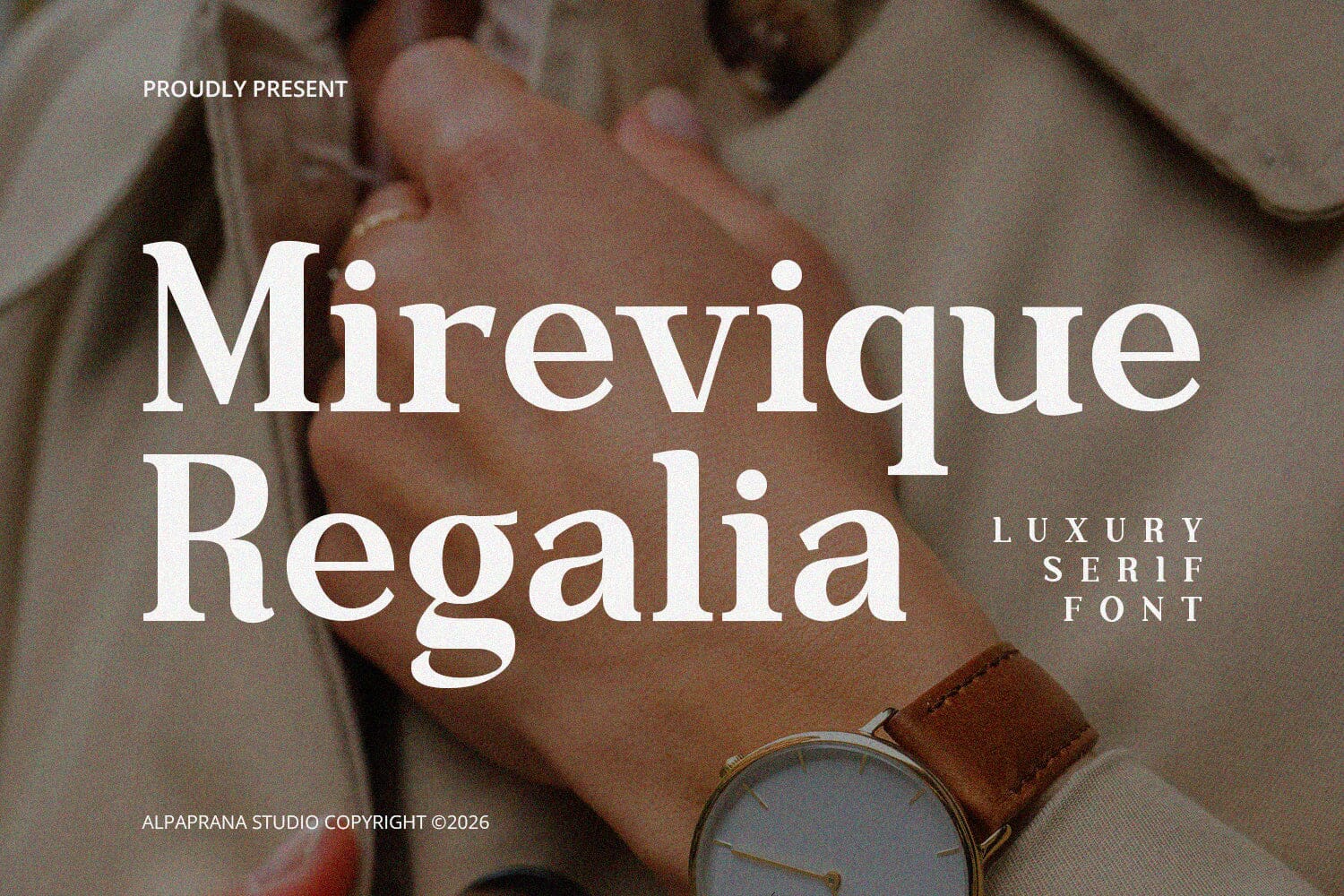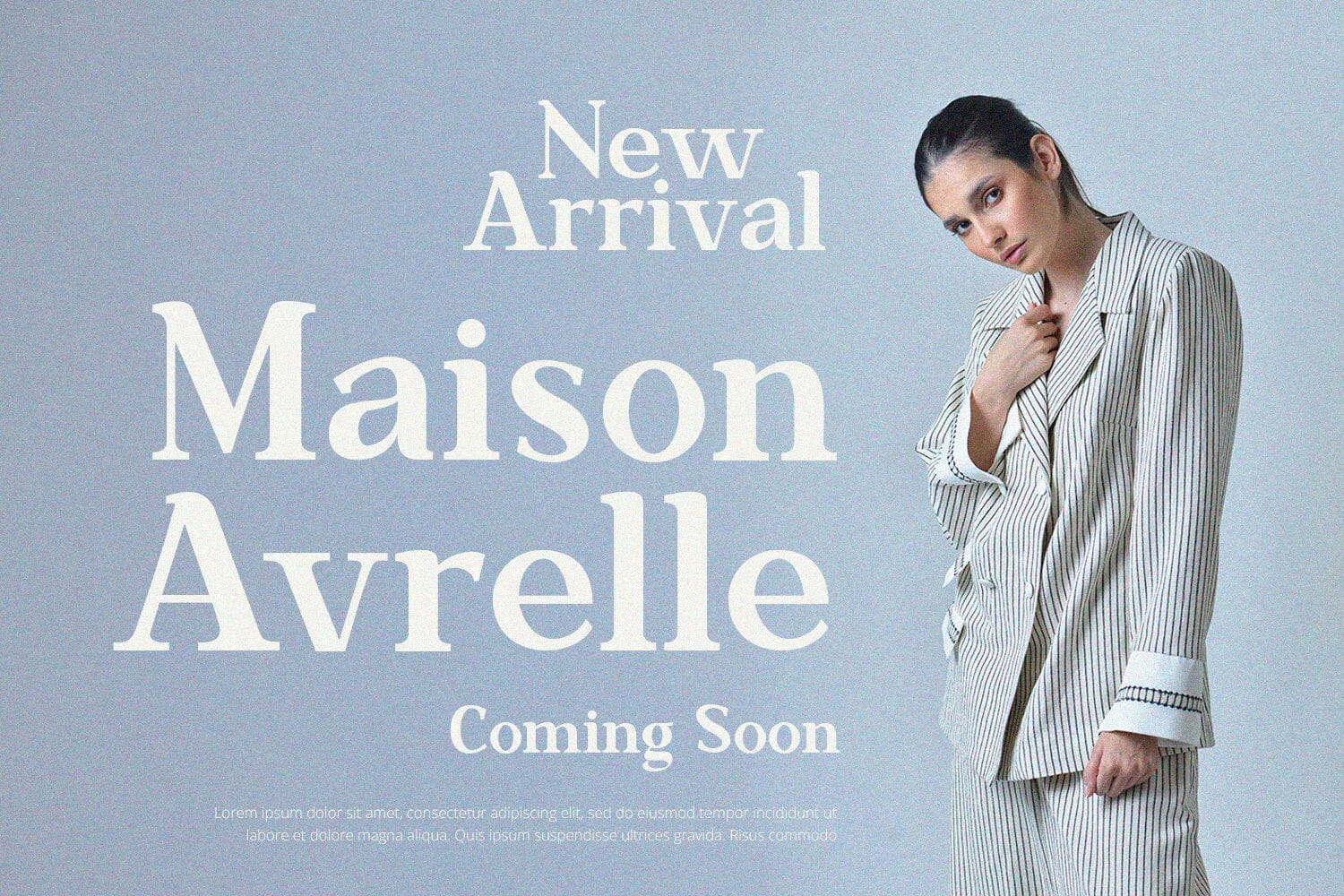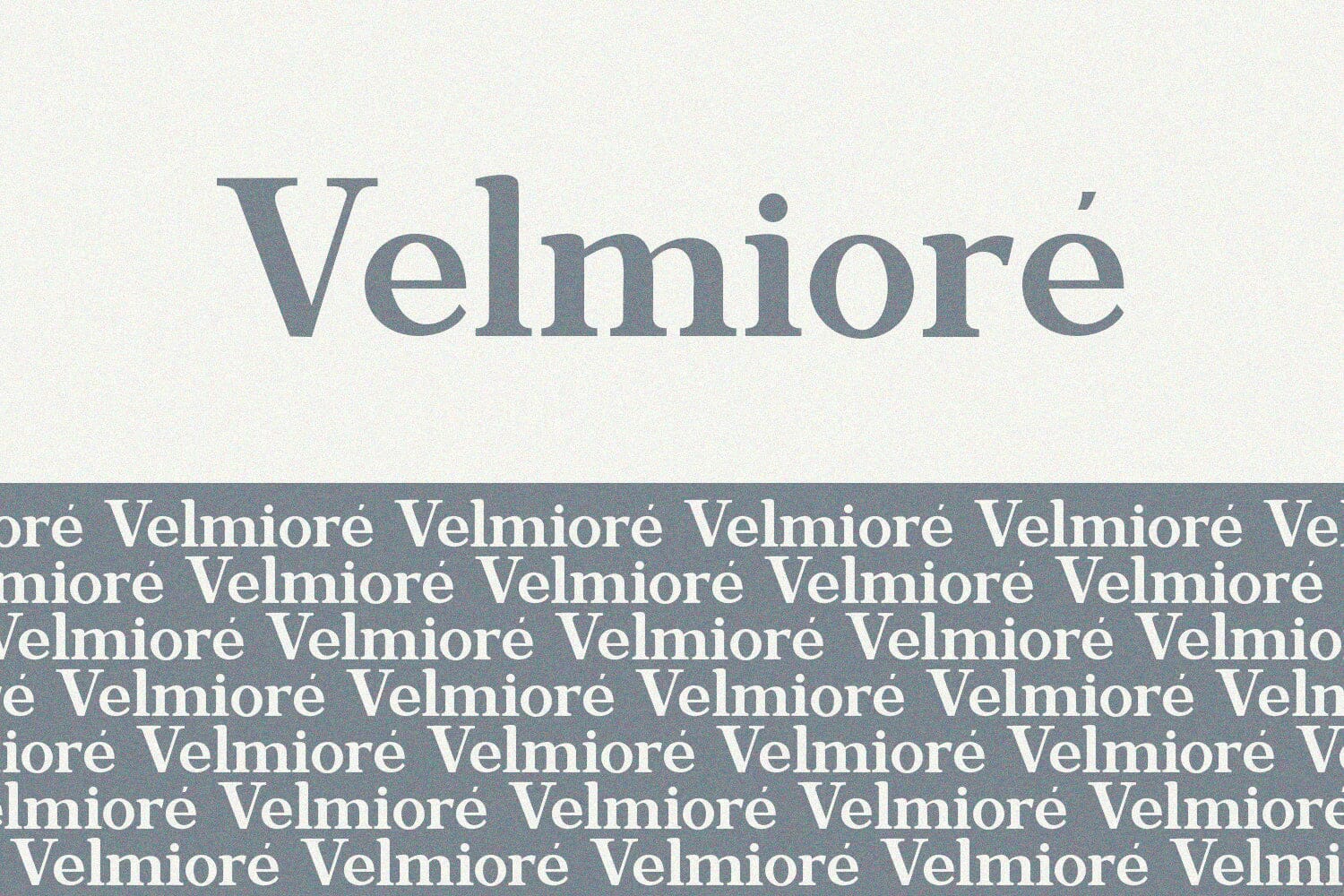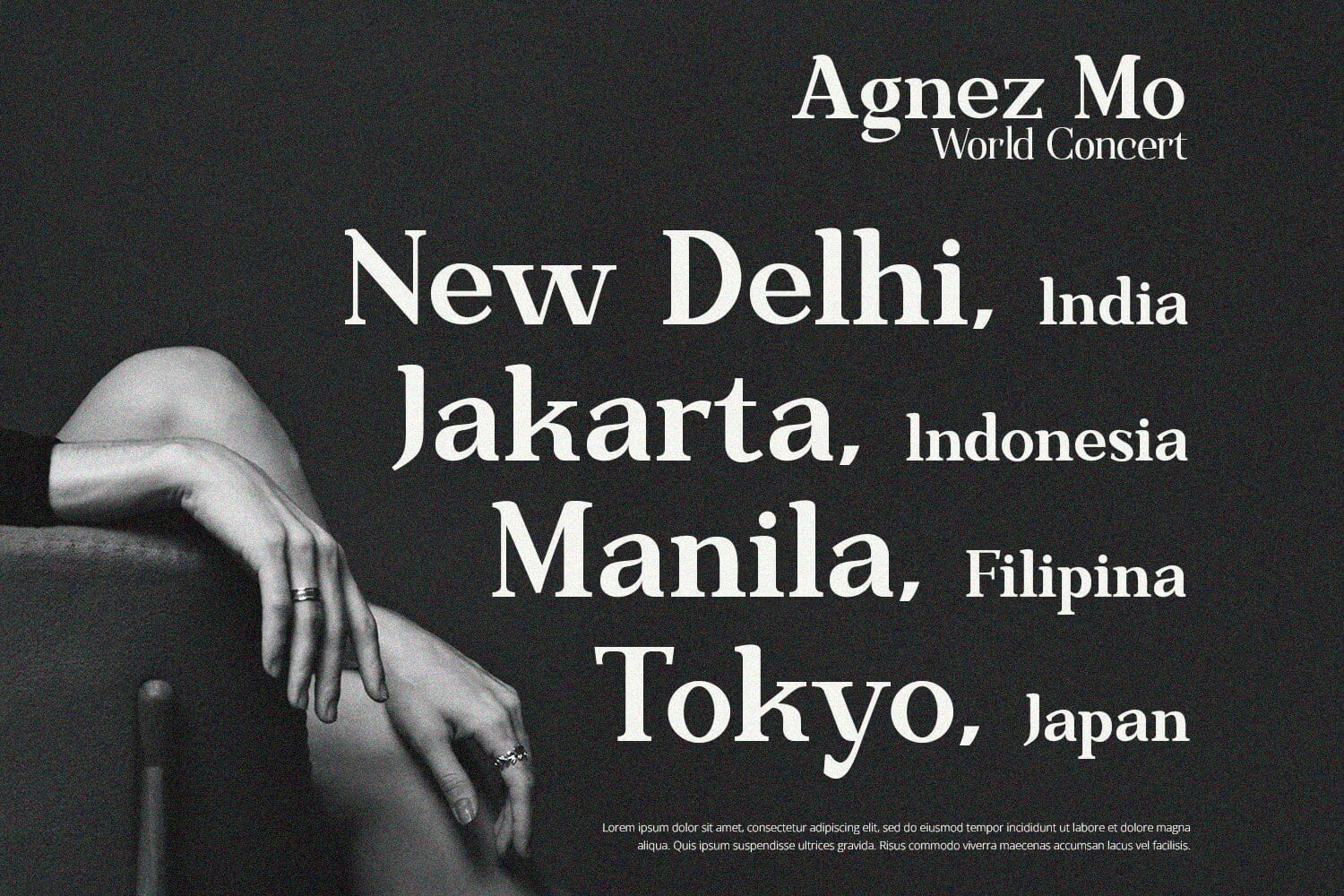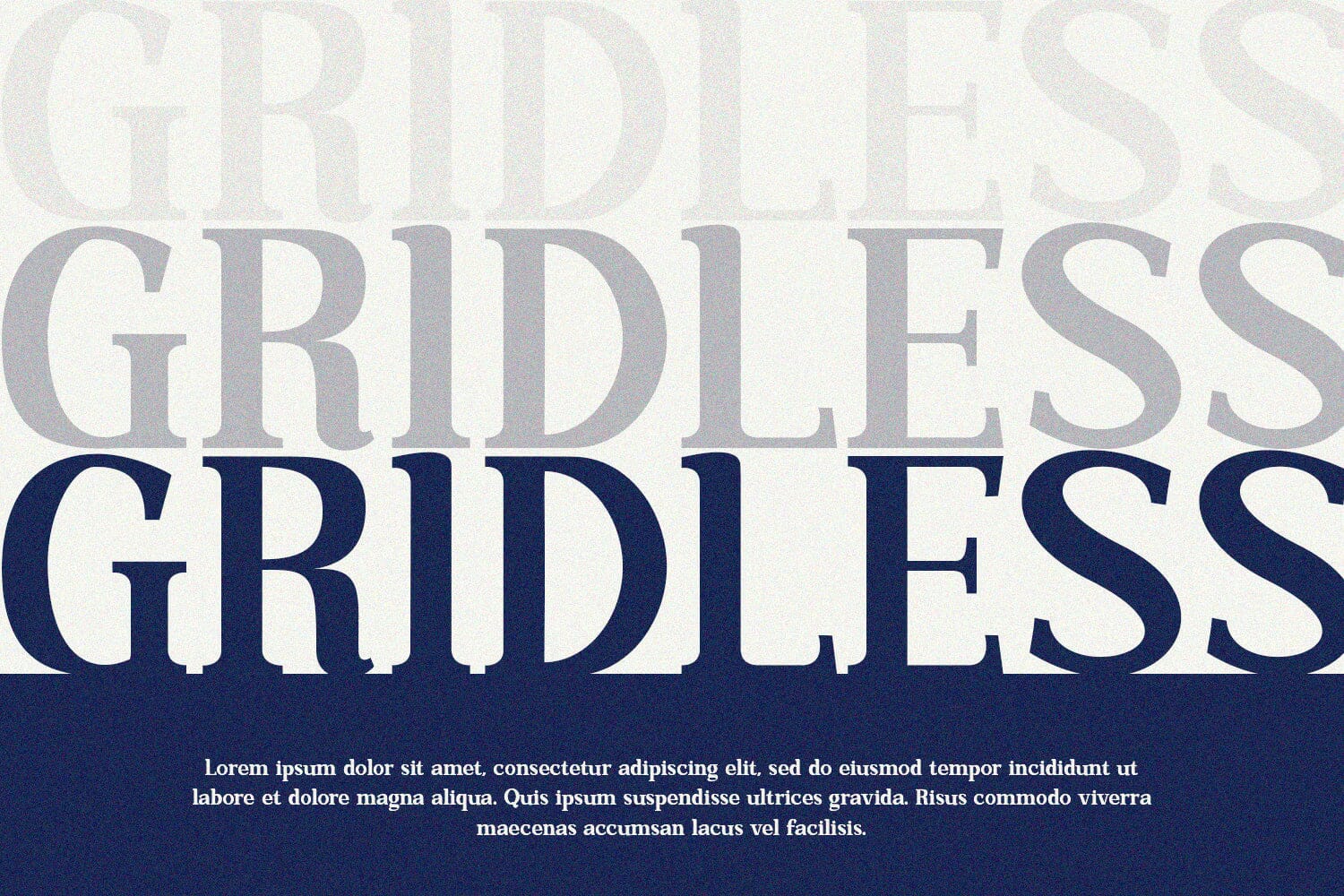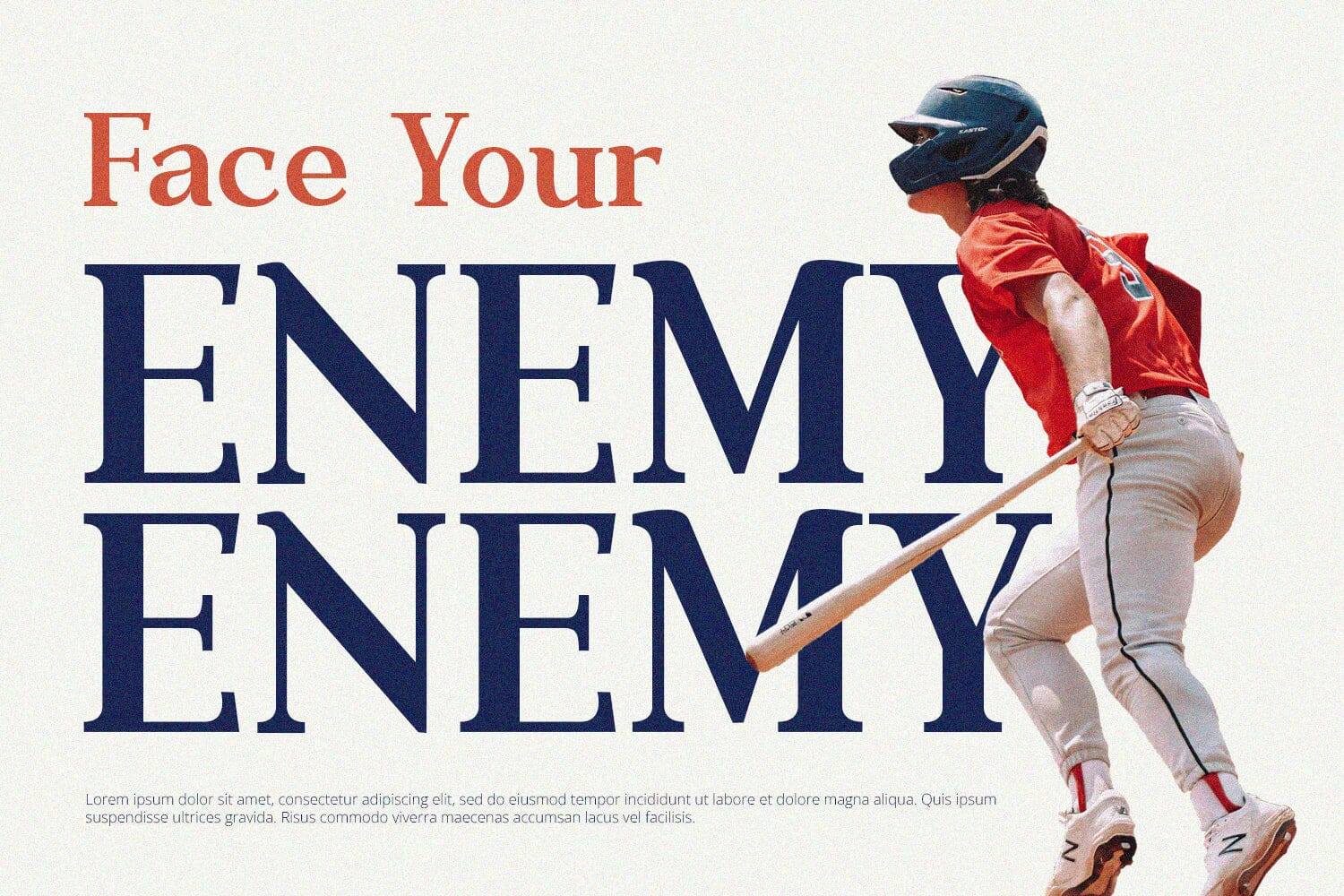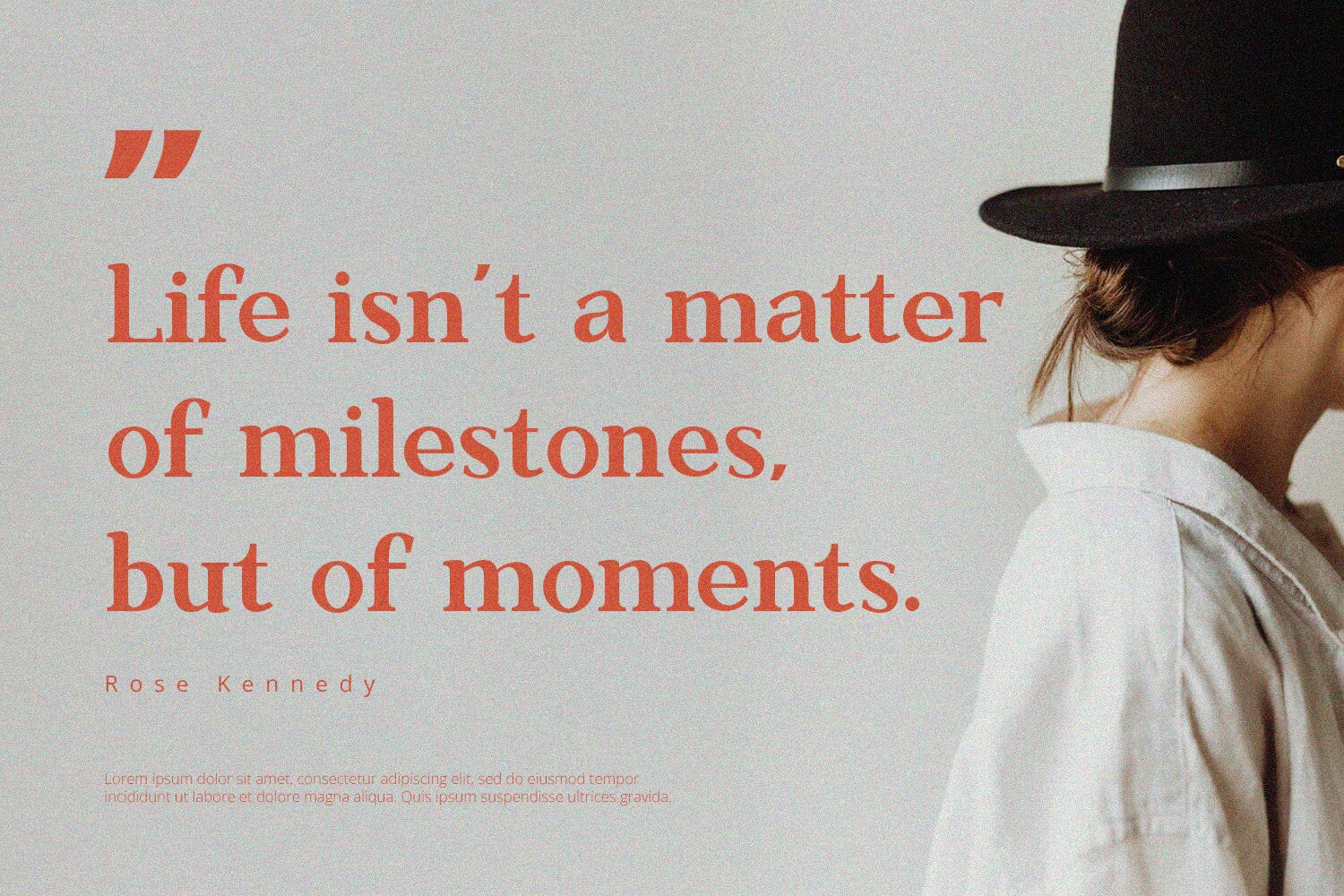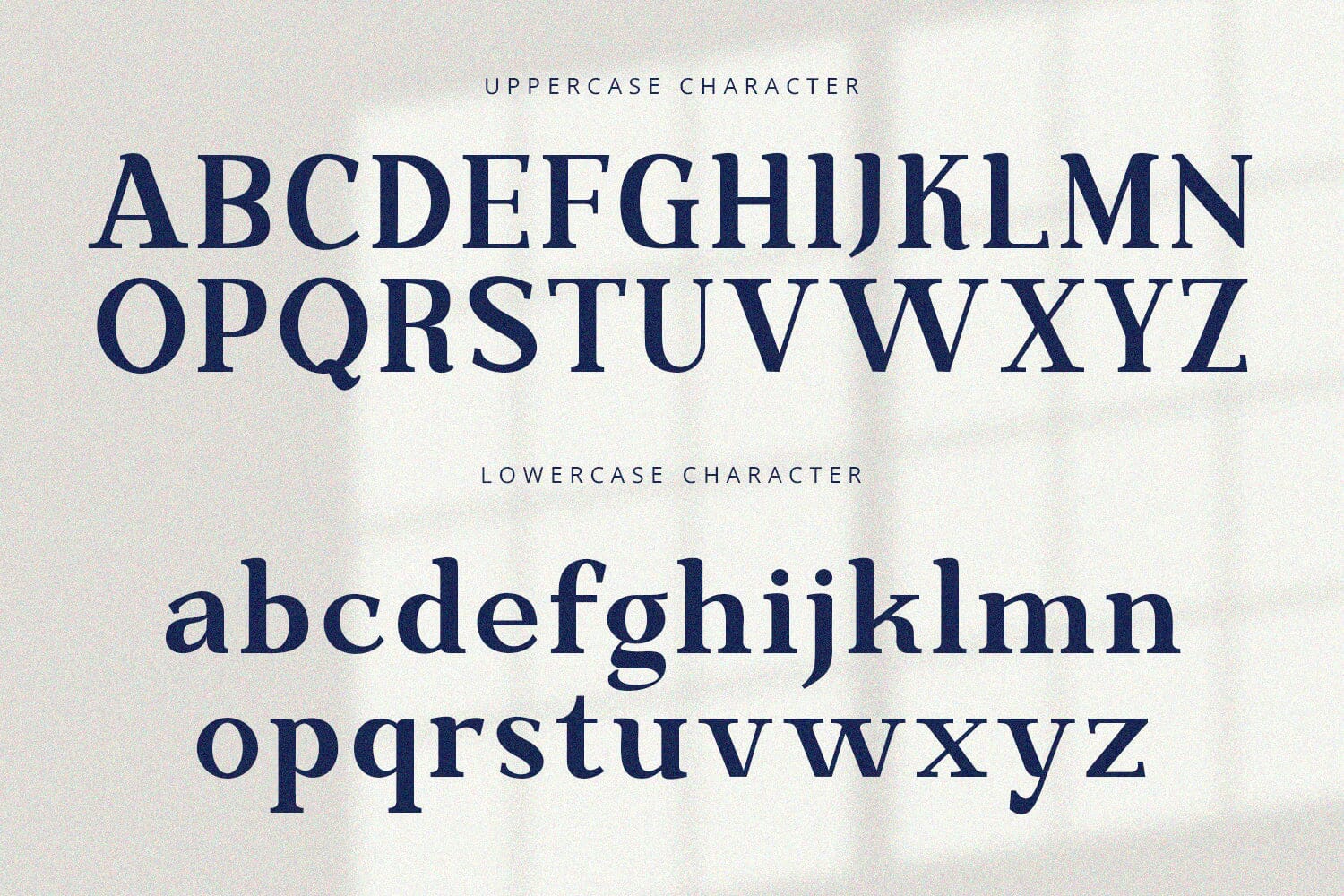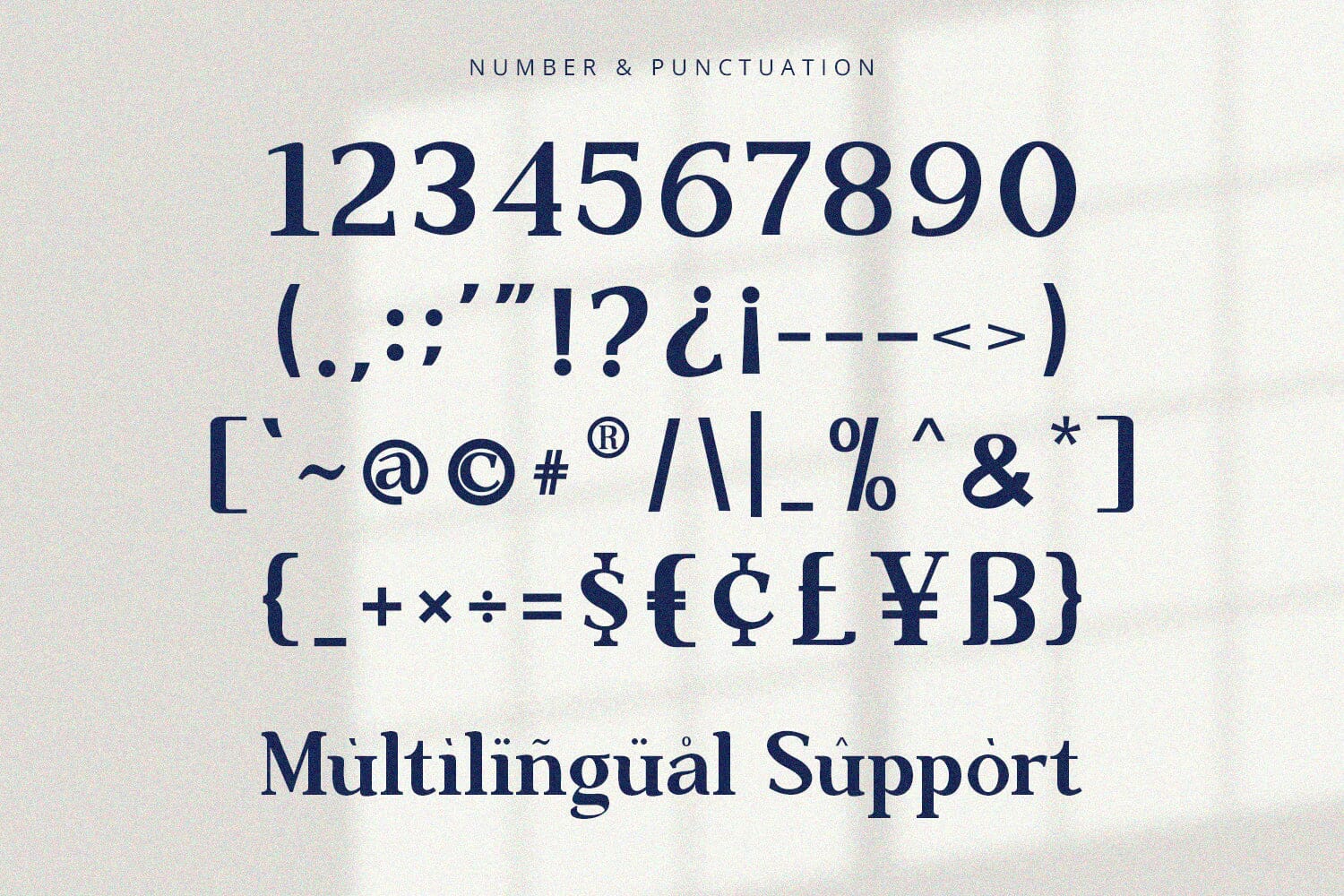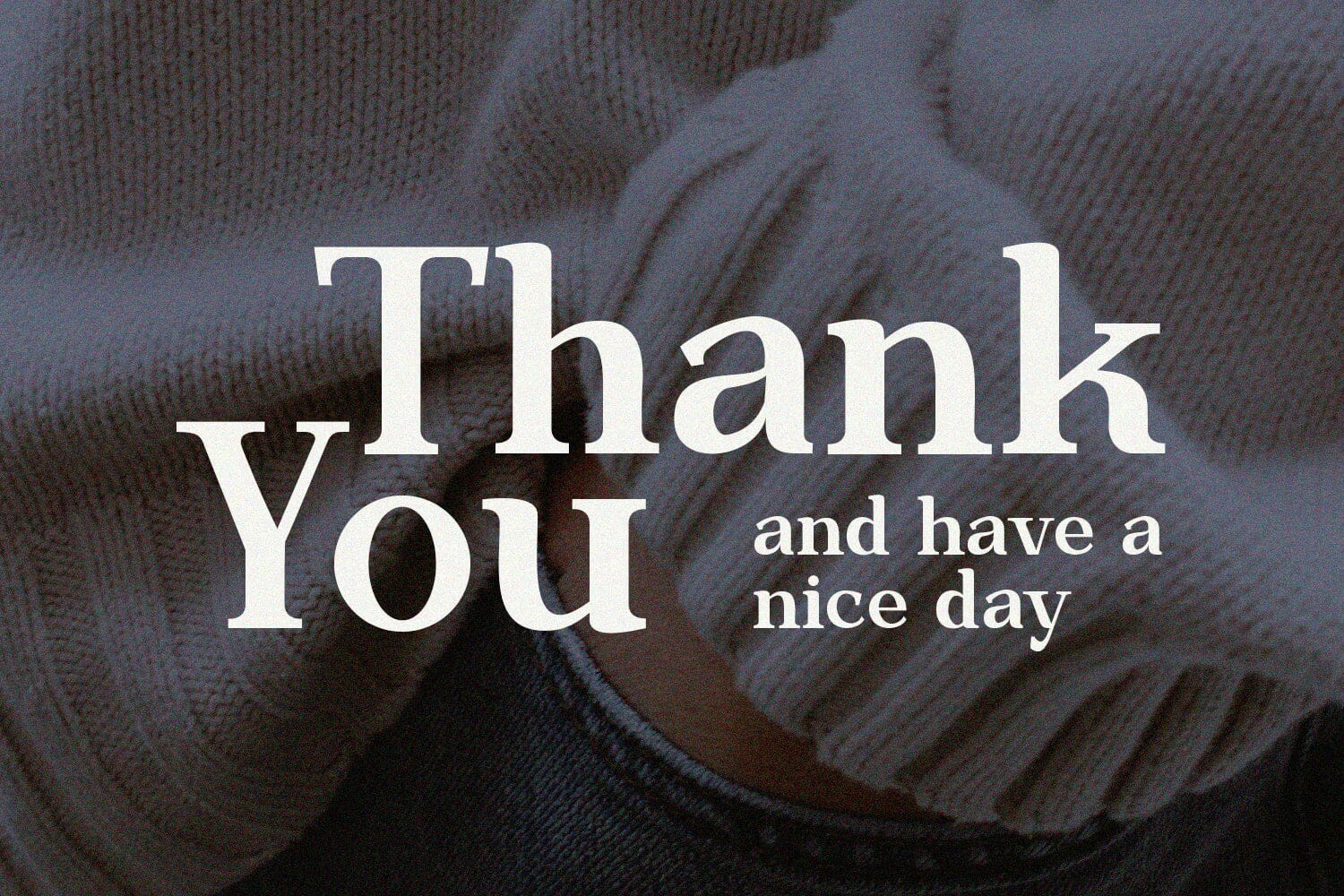
Mirevique Regalia - Serif Font
Mirevique Regalia is serif font with elegant and modern feels. It will be perfectly used for Branding, Logo Design, Lettering, Logotype, Clothing, Poster, magazine, packaging, posters, shopping bags, t-shirts, book covers, photography, special events and other design project.
Features :
- Uppercase & Lowercase
- Numerals
- Punctuations (OpenType Standard)
- Accents (Multilingual Characters)
- Ligatures and Alternative Style Stylistic Set